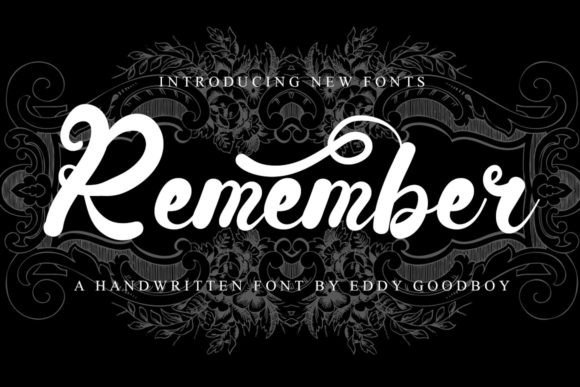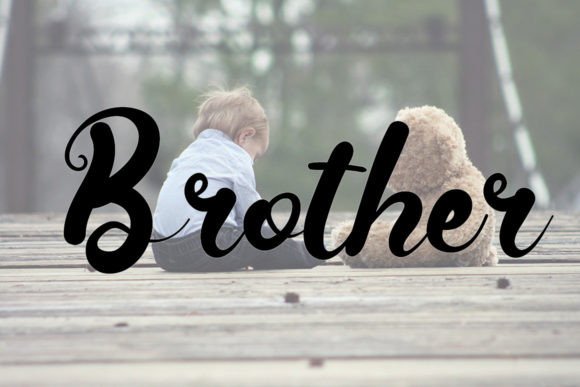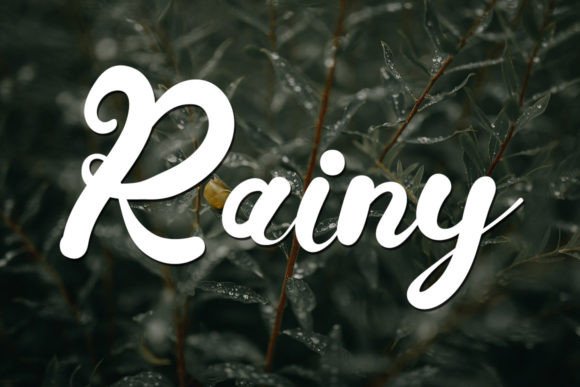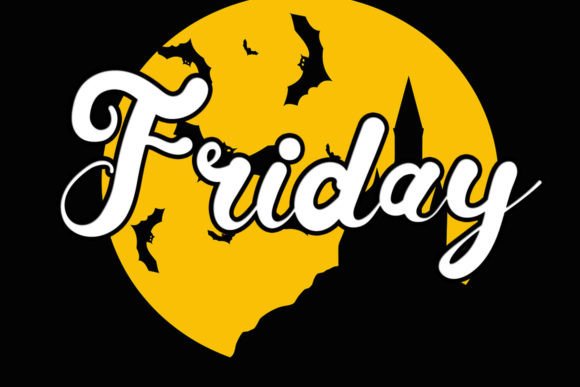
Remember Font
Remember Font Download – Sweet Elegant Handwritten Script
The Remember Font download is a sweet and elegant handwritten typeface that combines beauty with versatility. With its fresh strokes and joyful appearance, this font is perfect for both formal and casual projects. Whether you’re designing invitations, logos, or posters, Remember adds charm and warmth to your work.
A Fresh and Elegant Handwritten Style
The Remember Font download features clean strokes and graceful curves that make text look stylish yet approachable. Its sweet handwritten style captures a natural flow that feels authentic, adding a personal touch to your designs.
Wedding invitations, thank you notes, and greeting cards shine with the Remember Font download. Its elegance and warmth make it suitable for both romantic and festive occasions, helping you create stationery that feels heartfelt and memorable.
Great for Logos and Branding
Typography defines the tone of a brand, and the Remember Font download is excellent for logos, packaging, and promotional designs. Its clean and elegant script style conveys creativity and trust, making it a strong choice for lifestyle and boutique brands.
Versatile for Posters and Creative Projects
From posters and banners to social media graphics and digital artwork, the RememberFont download adapts easily across mediums. Its balance of elegance and readability ensures your projects stand out while remaining polished and professional.
Readability with Joyful Charm
While some handwritten fonts can be overly decorative, the RememberFont download maintains clarity. Its smooth curves and neat strokes keep text legible while still adding joyful character to your work.
Why Choose Remember Font?
Among handwritten fonts, the RememberFont download stands out for its sweet, elegant design and versatile usability. It’s refined enough for formal invitations yet casual enough for creative projects, offering designers flexibility and charm.
Add Sweet Elegance to Your Designs
Typography influences how your work is perceived, and the RememberFont download helps you add freshness, joy, and beauty. Whether for cards, branding, or posters, this font ensures your projects shine with elegance and creativity.